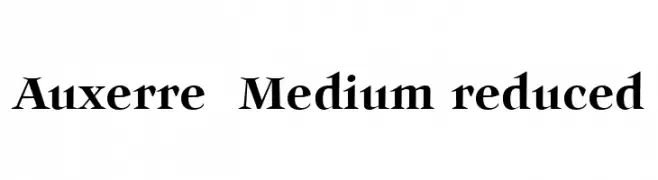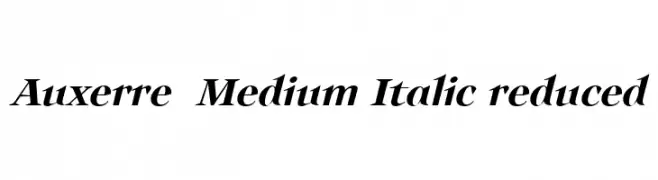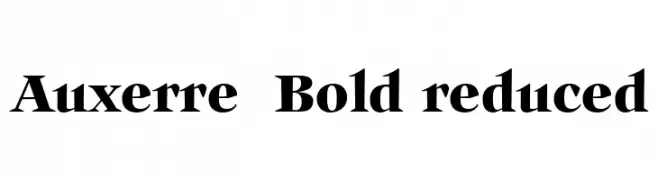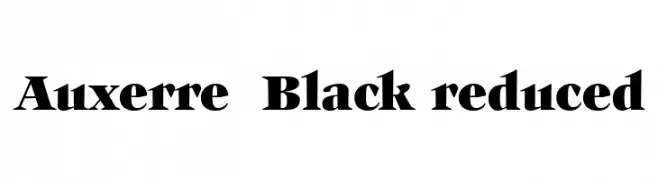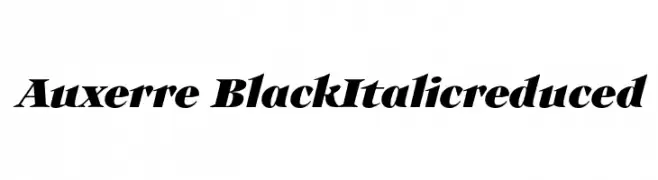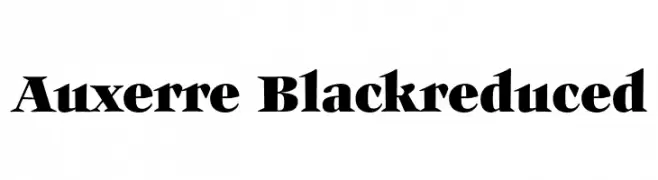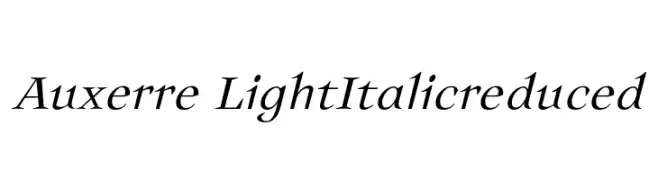
A refined, elegant serif font with a light, italicized style.
A refined, light, italic serif font with elegant slanted characters.
An elegant serif font with a classic italic slant and moderate stroke contrast.
A bold serif font with sharp serifs and strong vertical stress.
A bold, high-contrast serif font with a dramatic and elegant style.
A bold, italic serif font with a dynamic and authoritative style.
A classic serif font with bold, elegant curves and medium weight.
A classic serif font with sharp serifs and moderate contrast, blending traditional and modern elements.
A bold, serif font with strong strokes and a classic yet modern aesthetic.
A classic serif font with bold strokes and sharp serifs, ideal for formal use.